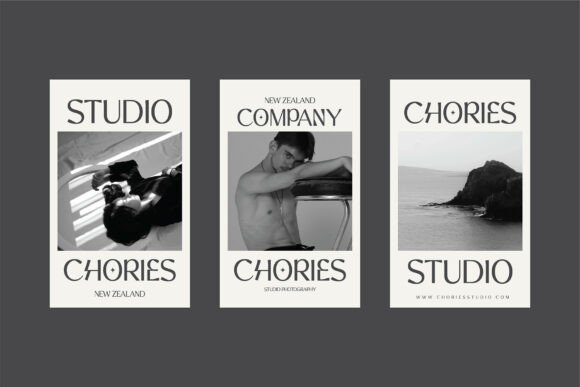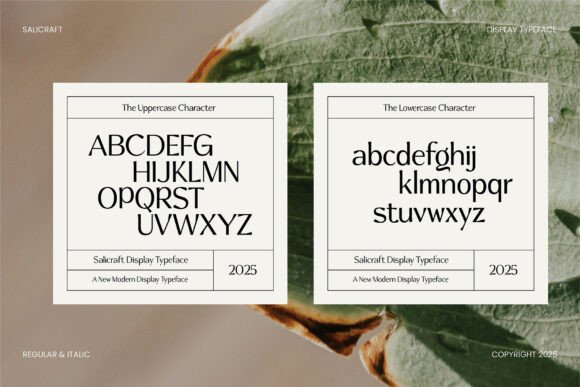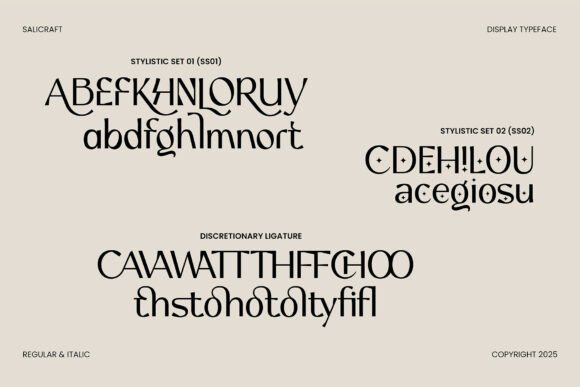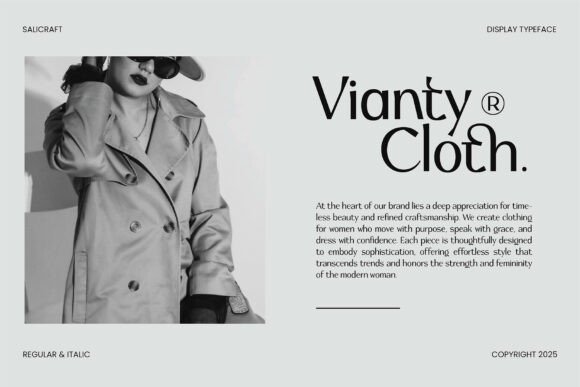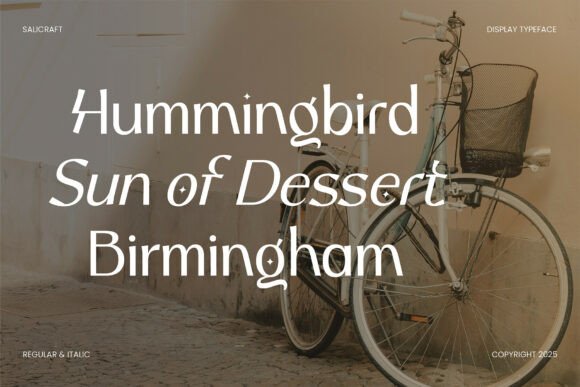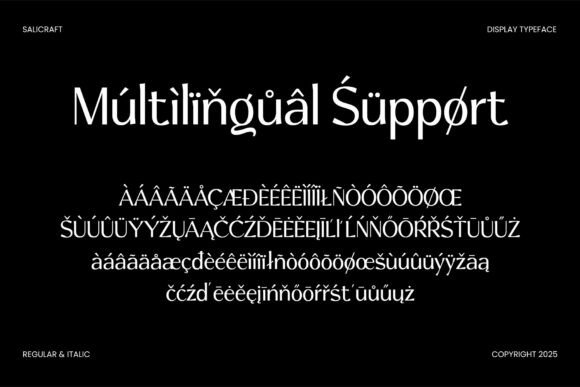
Introduction to Salicraft Font
Salicraft is a refined modern serif display font with elegant curves and contemporary character.
Its high-contrast strokes and geometric touches make it perfect for branding, editorial layouts, logos, and upscale packaging Available in Regular and Italic styles, Salicraft blends timeless serif elegance with a fresh, modern edge.
Key Features of Salicraft Font